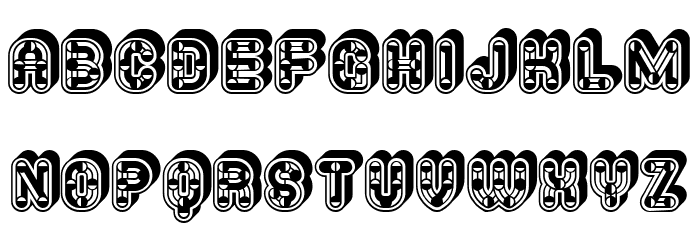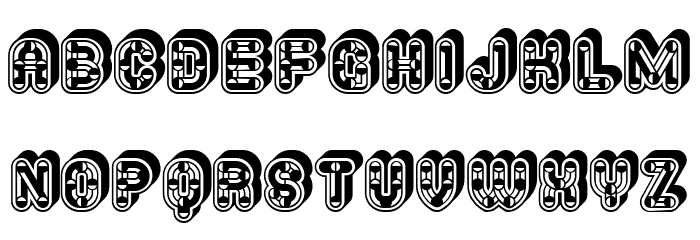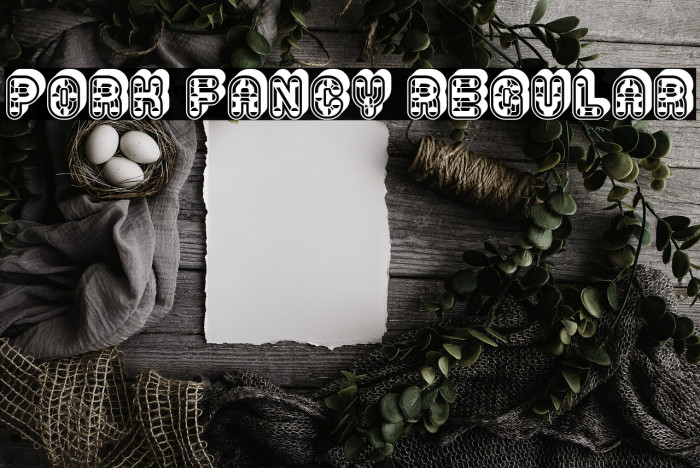
Pork Fancy Regular Font
This font features a bold, decorative style with a unique, playful design. Each character is outlined with a thick black border, creating a striking contrast against the intricate inner patterns. The letters are uppercase and have a three-dimensional effect, giving them a sense of depth and movement. The inner design consists of geometric shapes and lines, adding a modern and artistic flair. This font is eye-catching and ideal for projects that require a bold statement. Its distinctive style makes it suitable for creative and unconventional applications.
A bold, decorative font with a three-dimensional effect and intricate inner patterns.
- Proposed Projects: Ideal for posters, logos, headlines, and any design that needs a bold, artistic touch.
- Overall Style: Modern, Artistic